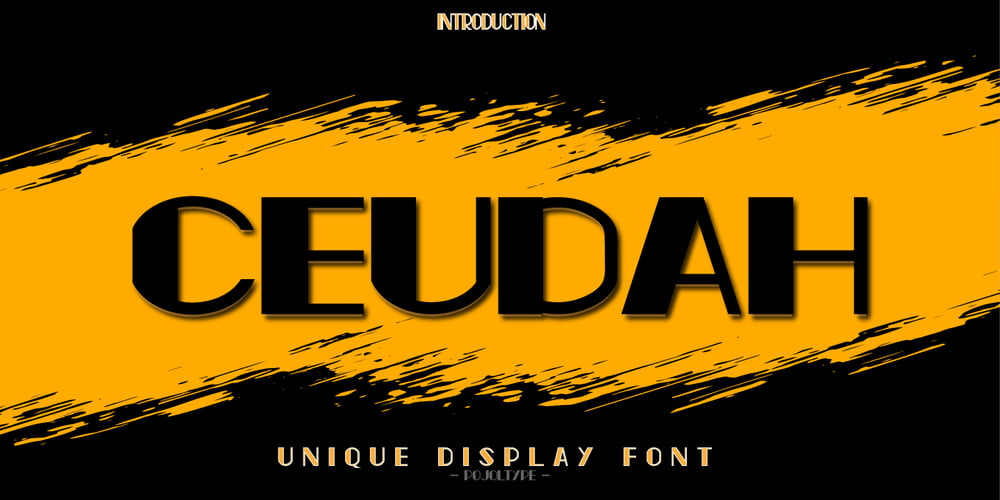
Ceudah Font Family was designed by Fauzul Azmi and published by PojolType. Ceudah contains 1 styles and family package options. Ceundah font is inspired by thick and thin Hand Sketches. This font can be used for film titles, magazine titles, newspaper front pages, billboards, or company brands.